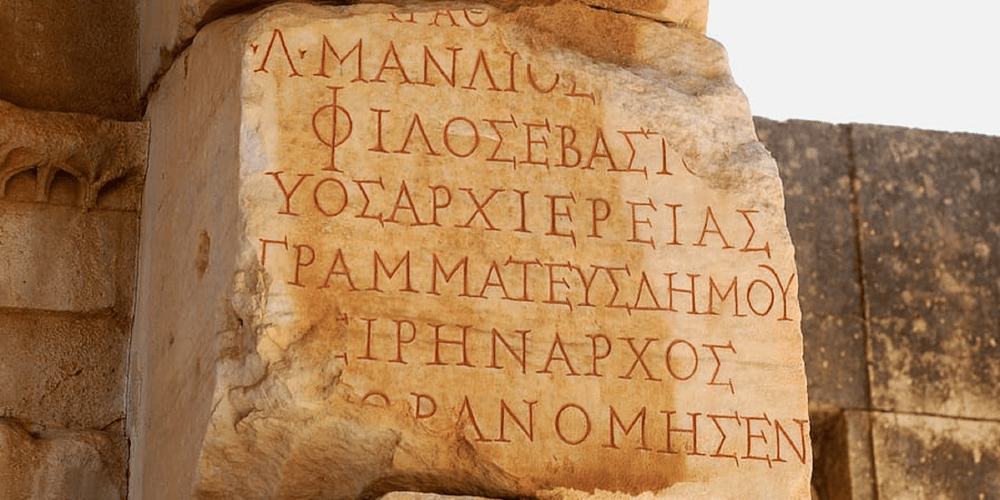
Ongunkan Greek Alanya Script Font Family was designed by Osman Nuri ALKAN and published by Runic World Tamgacı. Ongunkan Greek Alanya Script contains 2 styles and family package options. It is a Latin-based Greek font that I developed by taking the typography used in ancient Greek monuments and inscriptions in cities in the Aegean region of Turkey as an example. I am working on the Latin font of this model. Karamanli version is finished, I will upload it soon.